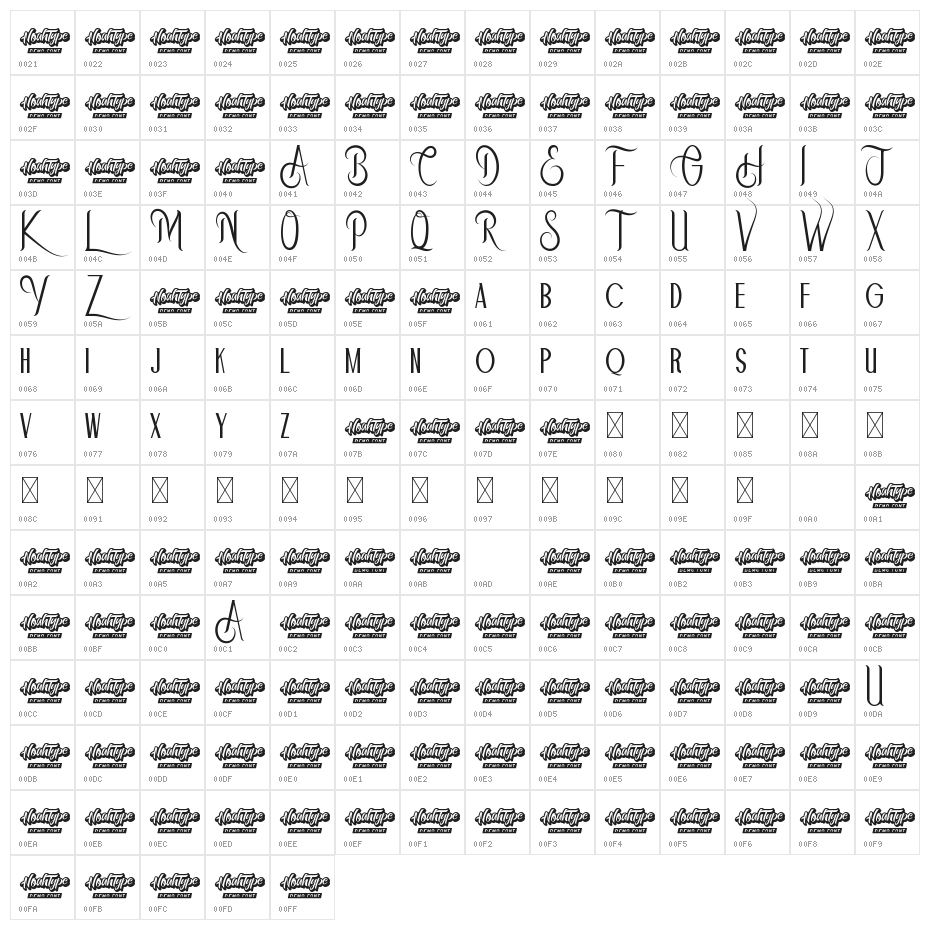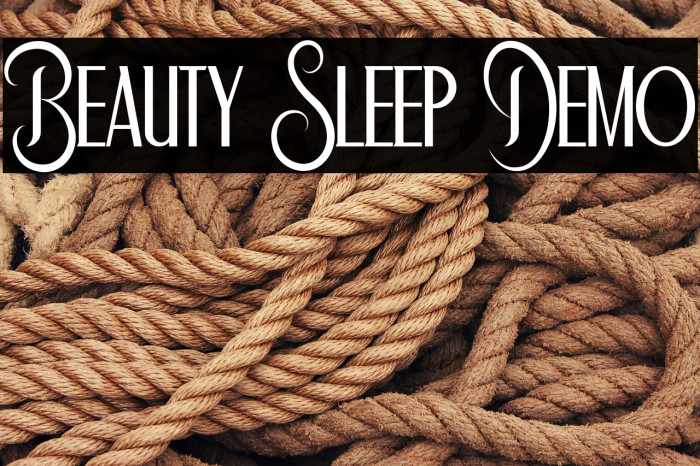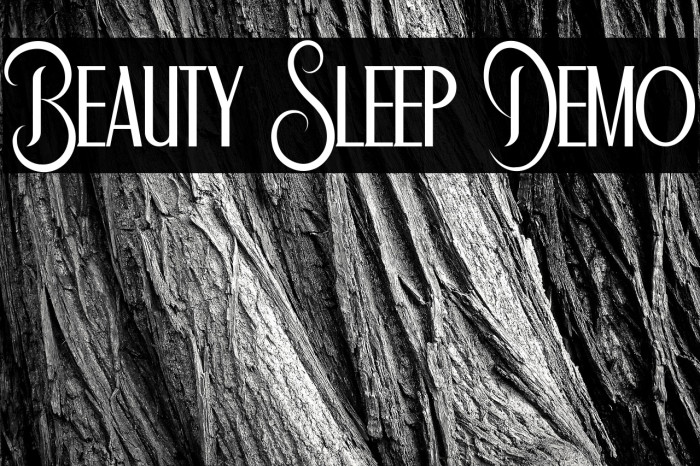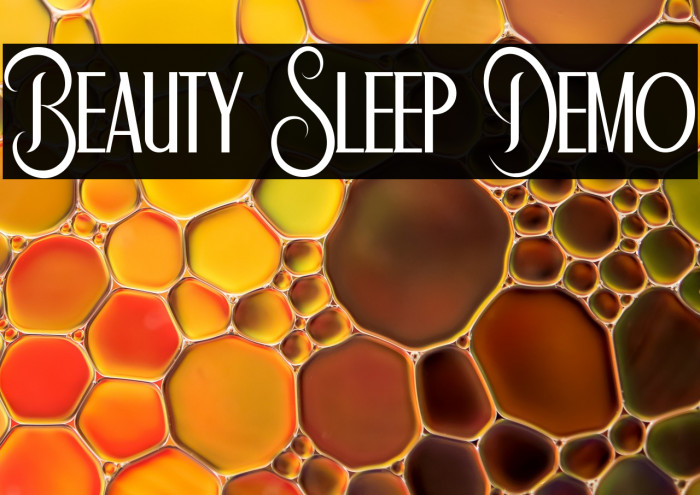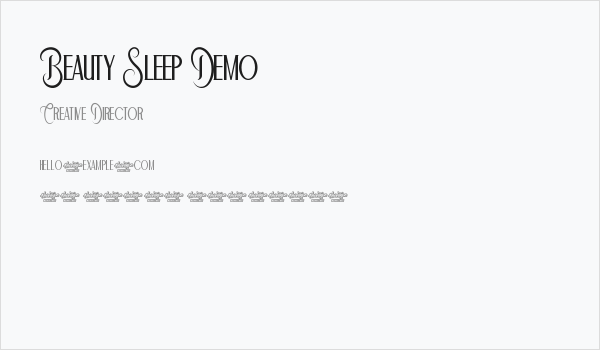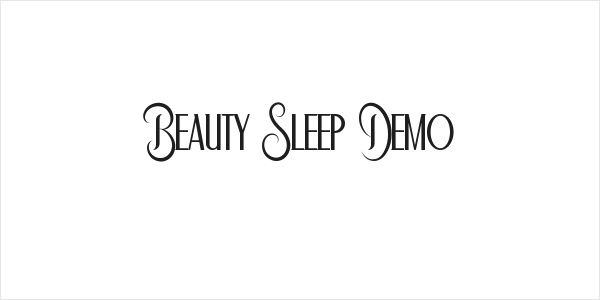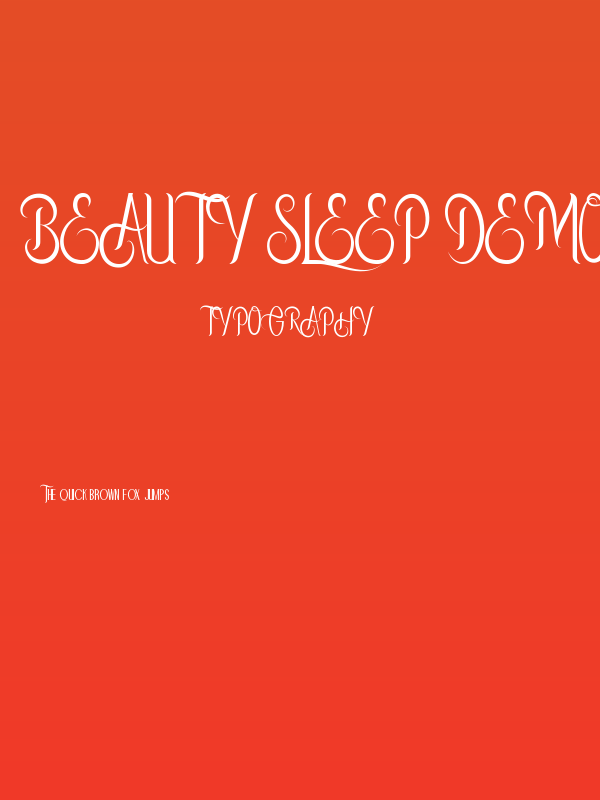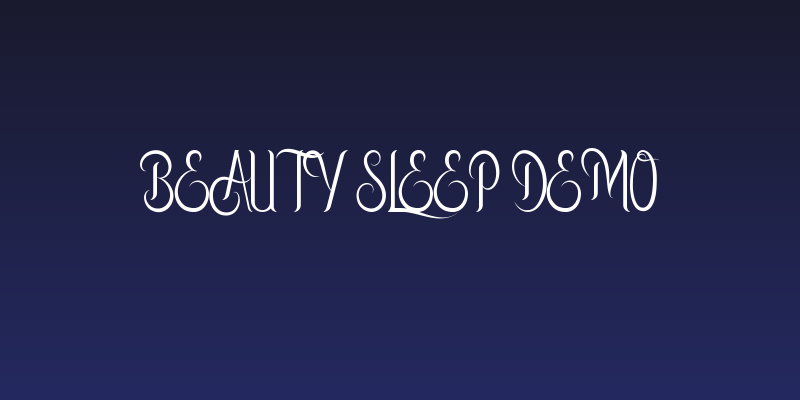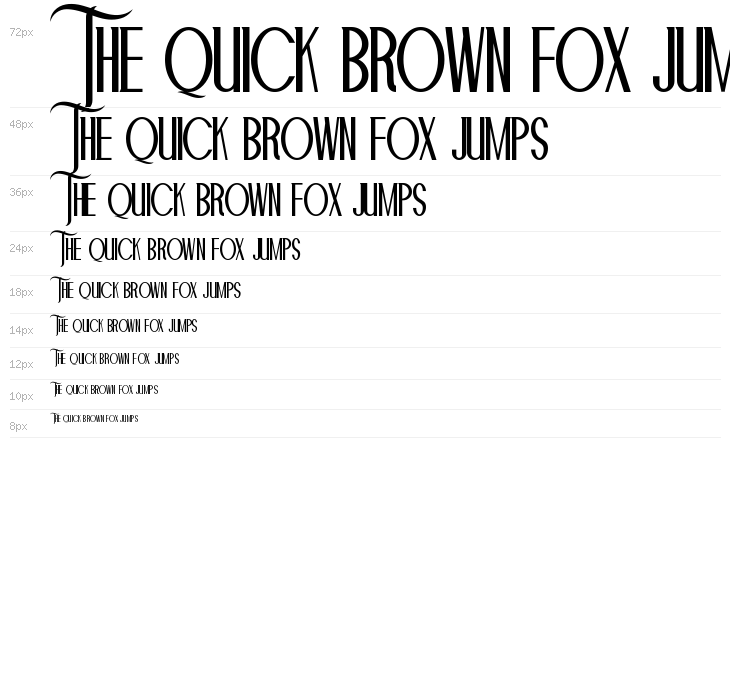
Beauty Sleep Demo Font
Beauty Sleep Demo Description
This font features a unique blend of elegance and modernity, characterized by its flowing, cursive-like uppercase letters that exude a sense of sophistication. The lowercase letters maintain a more straightforward, clean design, providing a balanced contrast. The overall style is decorative, with some letters incorporating swashes and flourishes that add a touch of flair. The font's design is versatile, making it suitable for various creative projects. Its distinct style is perfect for capturing attention while maintaining readability.
| Overall Style | Modern Decorative |
| Proposed Projects | Ideal for wedding invitations, luxury branding, fashion magazines, and artistic posters. |